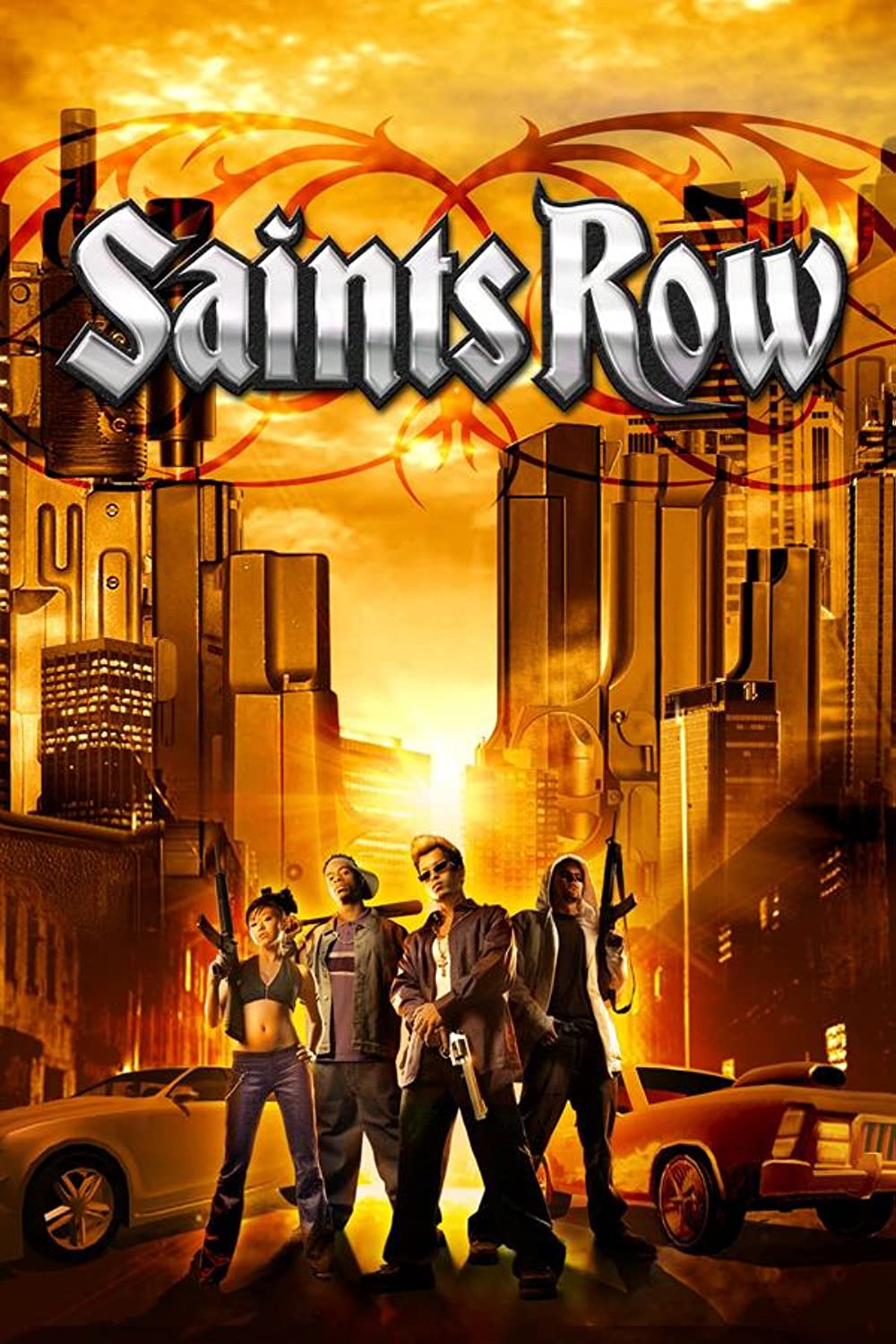
Saints Row Font
ActionSaints Row is a series of action-adventure video games created by Volition and published by THQ and Deep Silver. The gameplay revolves around the 3rd Street Saints, a fictional street gang originally operating in Saints Row.
The font used for the game Saints Row title in the box art is most likely Bradley Gratis designed by Justin Callaghan. The font comes in capital letters, lowercase letters, numerals, and limited punctuation marks.